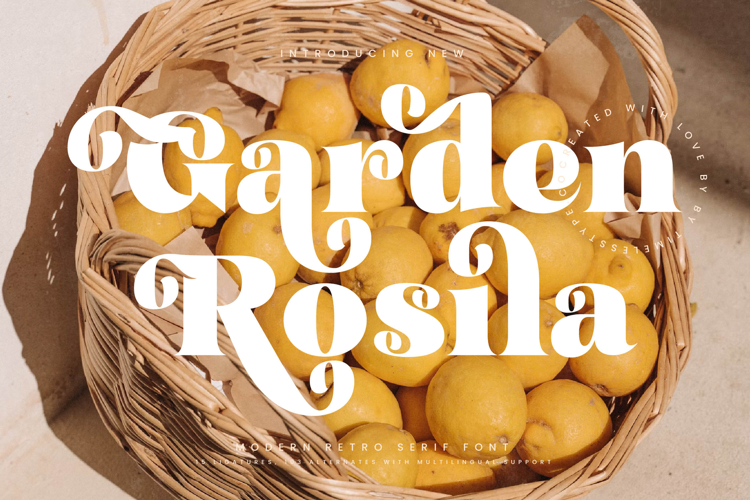
Garden Rosila - Modern Retro Serif Font
Garden Rosila is a modern retro serif font that blends boldness, elegance, and playful decorative flair. Its thick strokes, curved terminals, and ornamental alternates give it a distinctive personality that feels both nostalgic and contemporary. With 15 ligatures and over 100 stylistic alternates, Garden Rosila provides endless creative flexibility, making it ideal for designers who want to craft unique and memorable typography. Each letter carries a sense of artistry, ensuring that text does not just communicate but also becomes a striking visual element.
This font is designed to excel in headlines, where its commanding weight and ornate details make an immediate impression. It shines in editorial design, such as magazine covers, lifestyle spreads, and book titles, where it adds retro sophistication and expressive flair. In branding and logo design, Garden Rosila projects a confident and stylish identity, perfect for boutique businesses, creative studios, and lifestyle brands that aim to stand out with bold character.
Garden Rosila also elevates packaging design, especially for food, beverages, or artisanal products, where a blend of vintage charm and modern appeal enhances desirability. In event posters and advertising campaigns, the font’s decorative ligatures and alternates add energy and personality, making designs more engaging and memorable. For digital platforms, including websites and social media graphics, Garden Rosila enhances visual storytelling, giving content a stylish retro edge that feels current and engaging.
Its versatility ensures it adapts seamlessly to wedding invitations, promotional flyers, and lifestyle branding, where elegance and expressiveness are equally important. With multilingual support, Garden Rosila is not limited by borders, making it a practical choice for global campaigns and international design projects.
Ultimately, Garden Rosila is more than a retro-inspired font—it is a design statement. Its ability to merge ornamental detail with bold serif structure ensures that every project—whether editorial, branding, packaging, advertising, or digital media—feels elevated, stylish, and unforgettable.